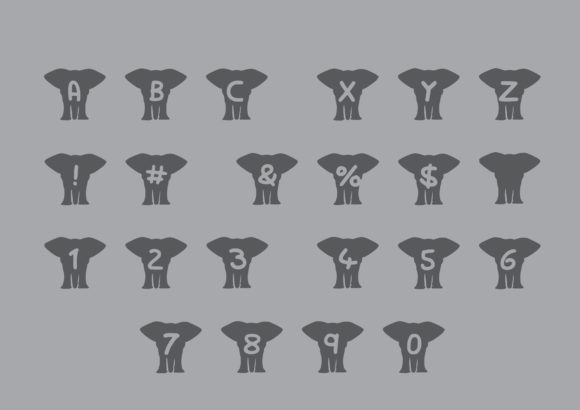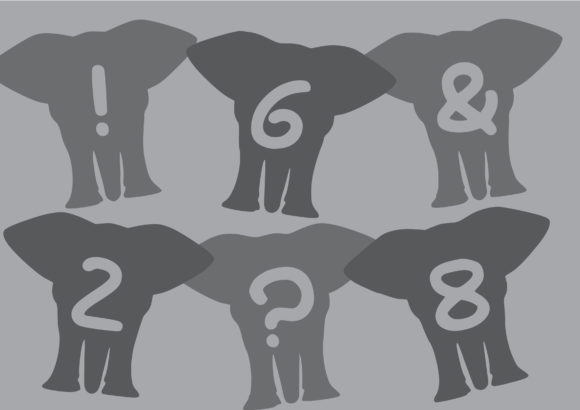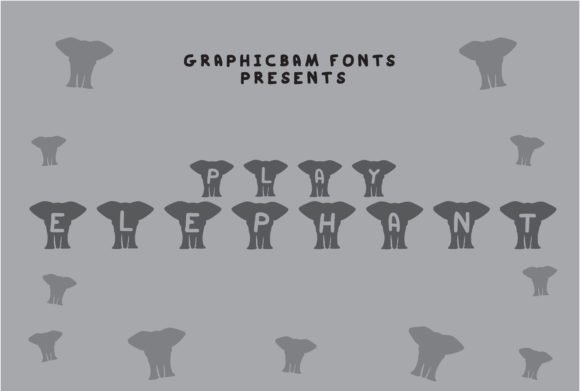
Introduction to Play Elephant Font
Play Elephant is a cute decorative font that will bring safari vibes to your most creative ideas.
Use it for book covers, zoo-themed projects, stationery items, school designs, and so much more .
Why Choose Play Elephant Font?
Play Elephant Font offers exceptional quality and versatility, making it a valuable addition to your design toolkit. Whether you’re creating for personal projects or commercial use, Play Elephant Font delivers professional results.